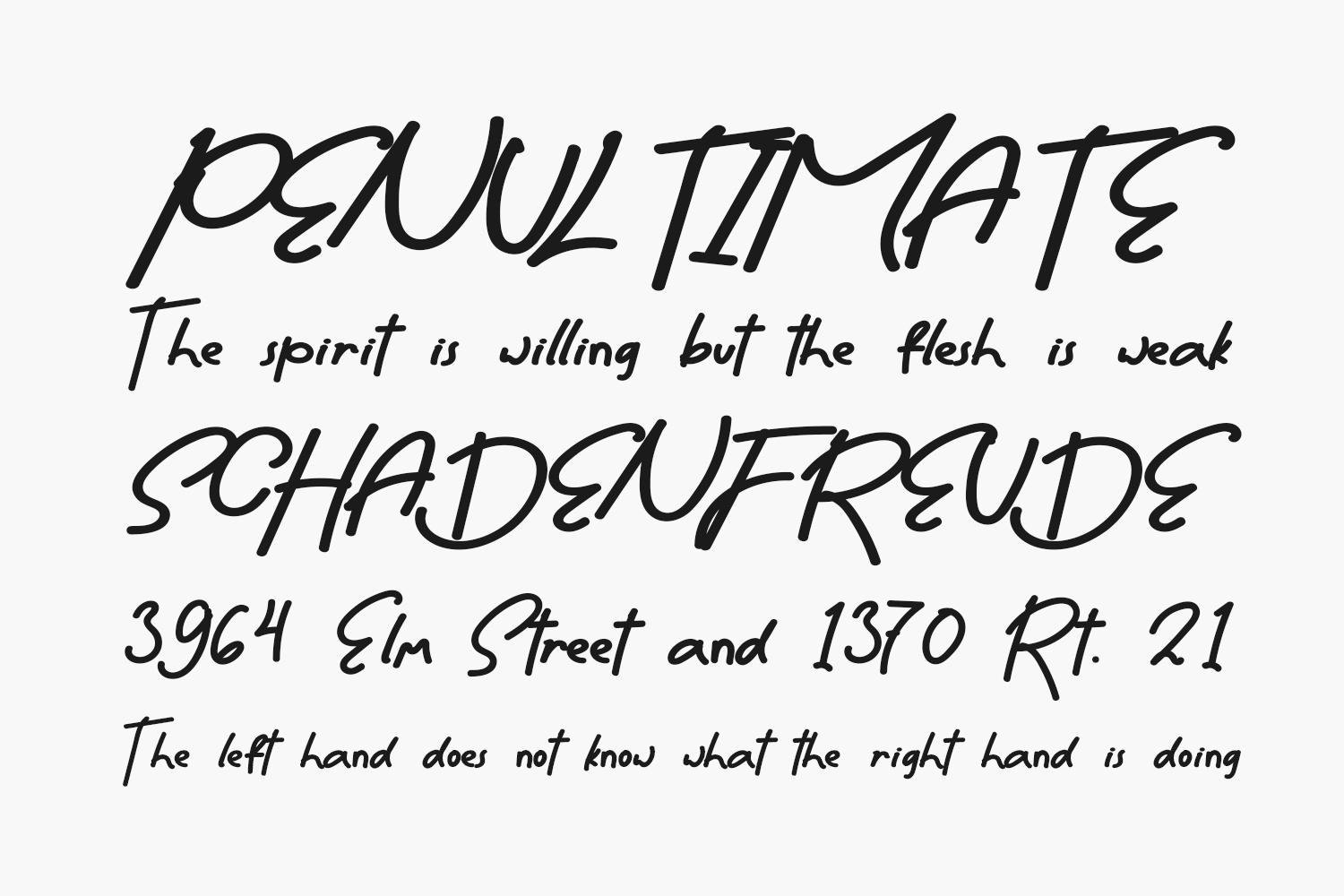
Better Day Free Font is a lovely script font that exudes elegance. This font was particularly crafted for those who need a beautiful look to their designs. Better Day Free Font was designed by Eddy Goodboy and is free for personal use only. Please purchase the full version for commercial use.